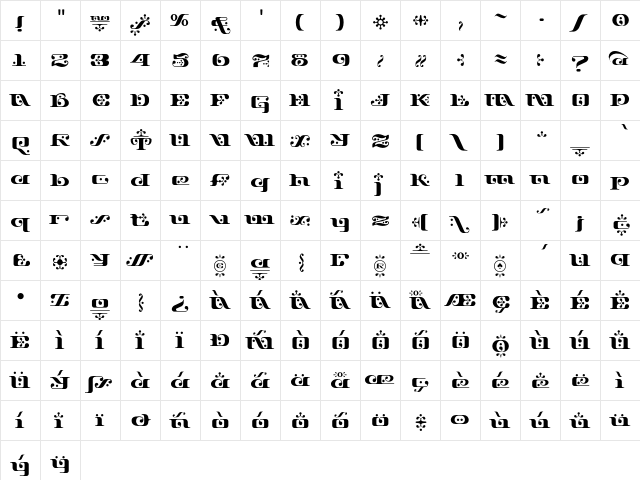
Django Regular Font Preview
Django Regular
Design Context for Django Typeface
Django is a composed and adaptable typeface that performs quietly and consistently across a wide range of design contexts.